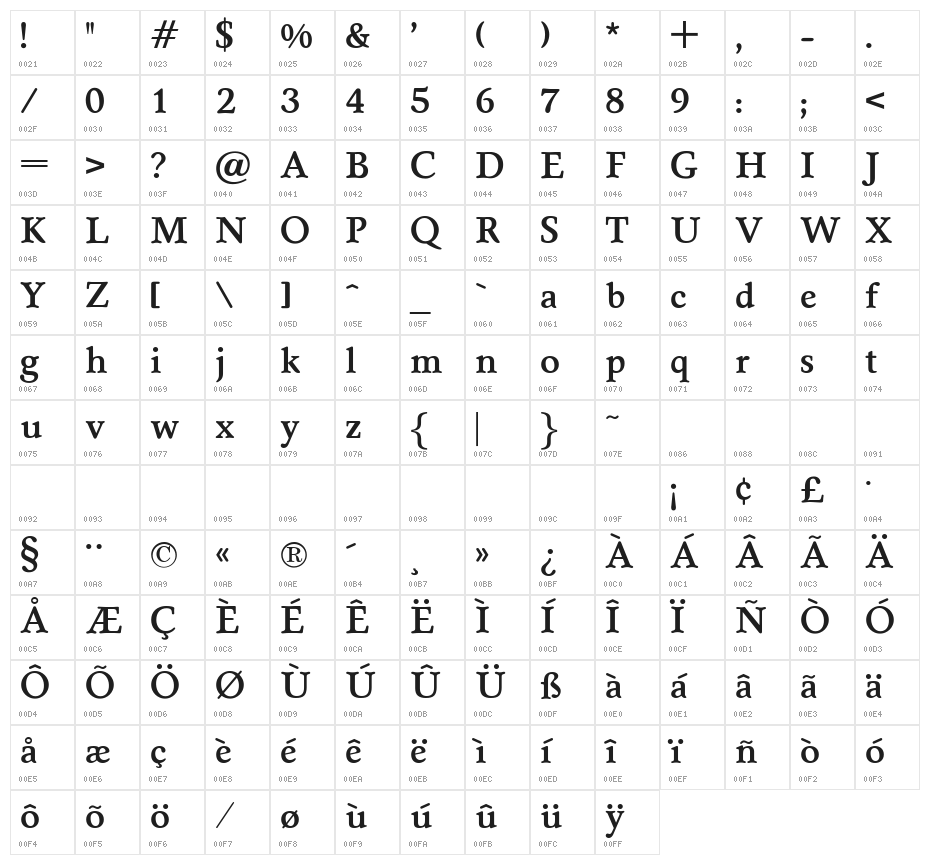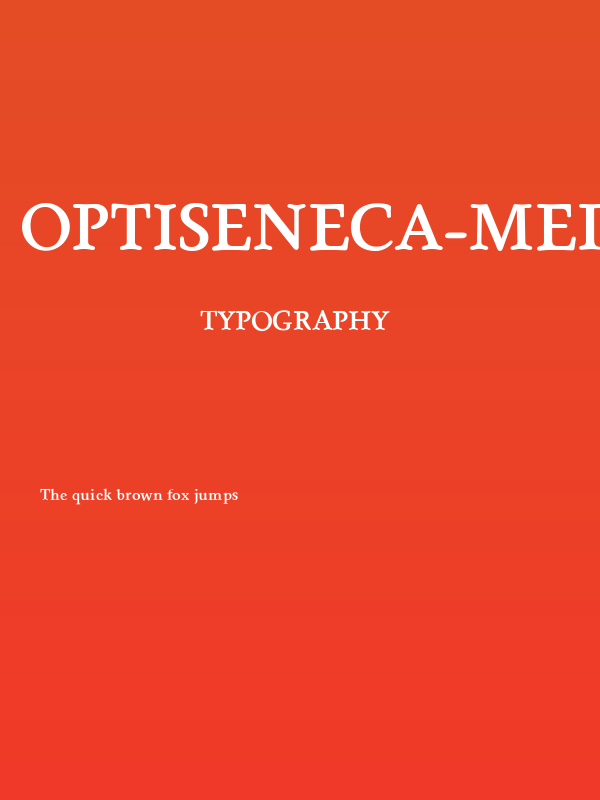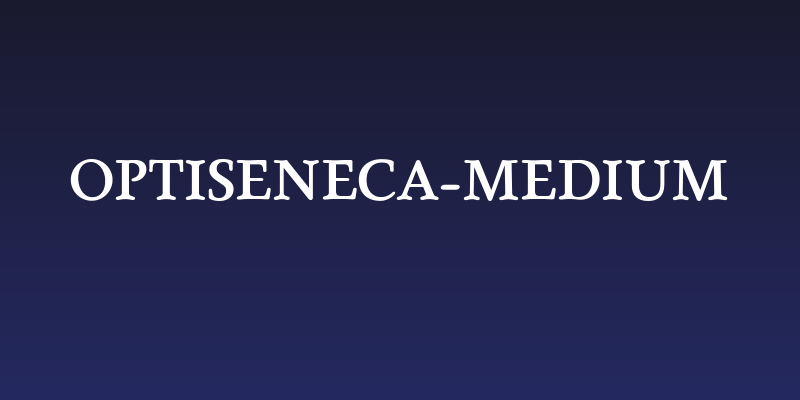
OPTISeneca-Medium Font
OPTISeneca-Medium Description
This font features a classic serif style with a medium weight, offering a balanced and readable appearance. The characters are well-proportioned, with a slight contrast in stroke thickness that adds elegance without compromising legibility. The serifs are pronounced yet refined, giving the typeface a traditional and formal feel. The uppercase letters are bold and commanding, while the lowercase letters maintain a consistent and harmonious flow. Numerals are clear and distinct, making them suitable for both text and display purposes. Special characters are thoughtfully designed, ensuring versatility across various applications.
| Proposed Projects | Ideal for editorial design, book covers, formal invitations, and branding materials that require a touch of sophistication. |